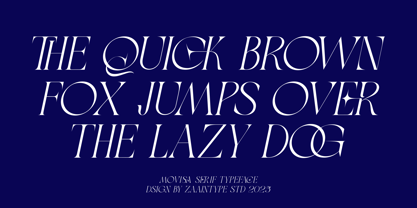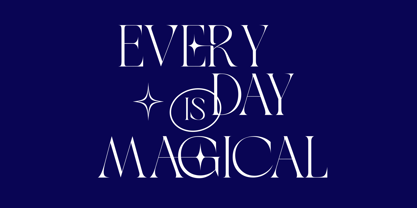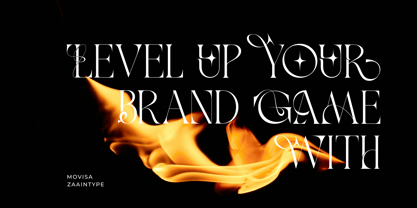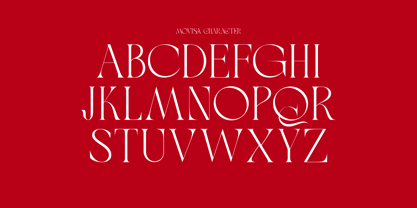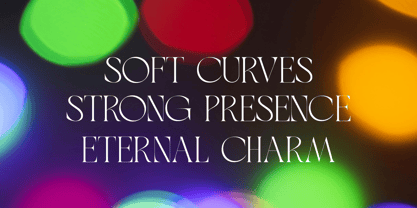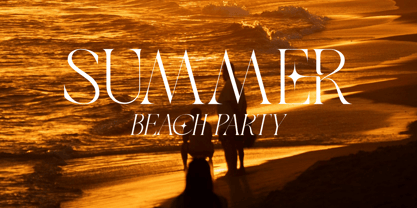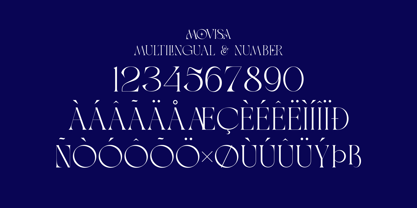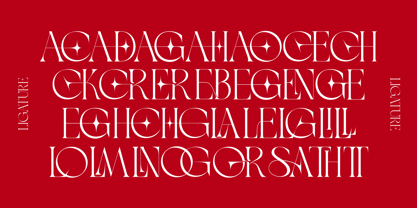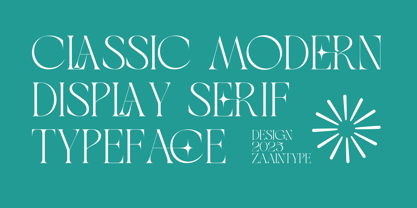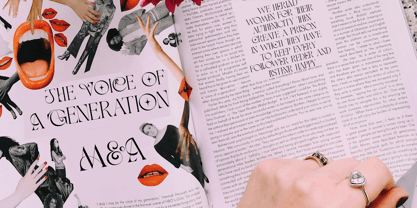
Movisa
by Zaain Type
The Movisa Font Family was designed by Ju Naen and published by Zaain Type. Movisa contains 2 styles and family package options.
MOVISA is a classic-modern serif typeface that blends timeless elegance with contemporary finesse. With its soft contrast and refined curves, MOVISA offers two styles – Regular and Oblique – crafted for editorial designs, branding, and high-end visual storytelling. Perfect for those seeking sophistication in every letterform
Designers: Ju Naen
Publisher: Zaain Type
Foundry: Zaain Type
Design Owner: Zaain Type